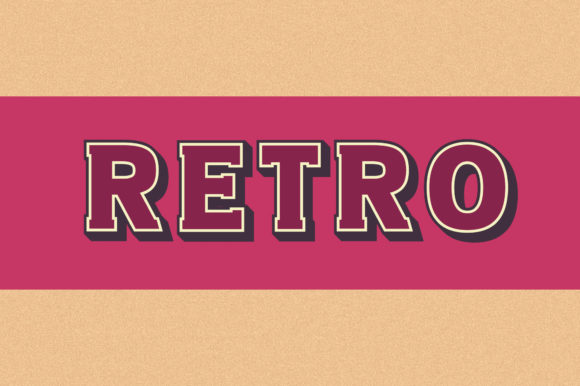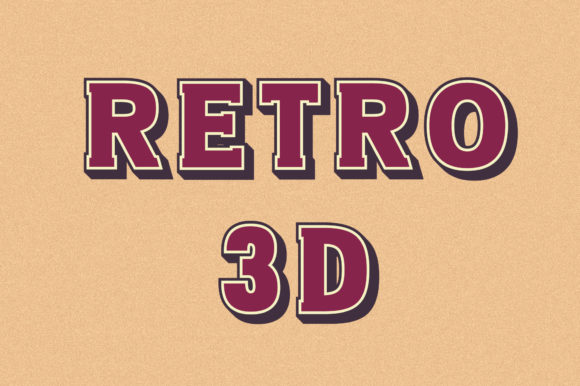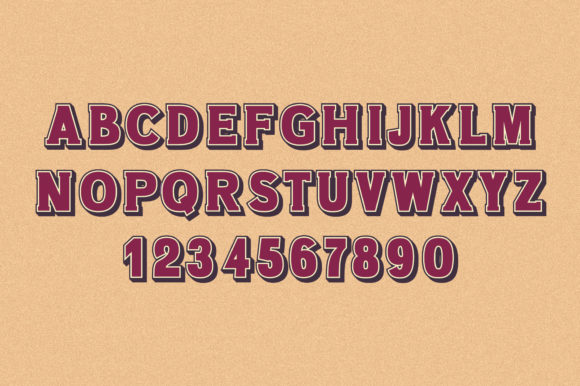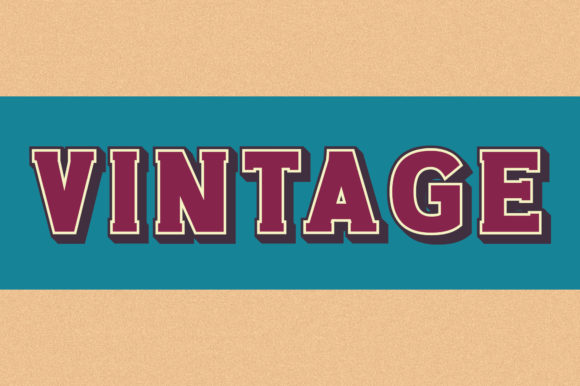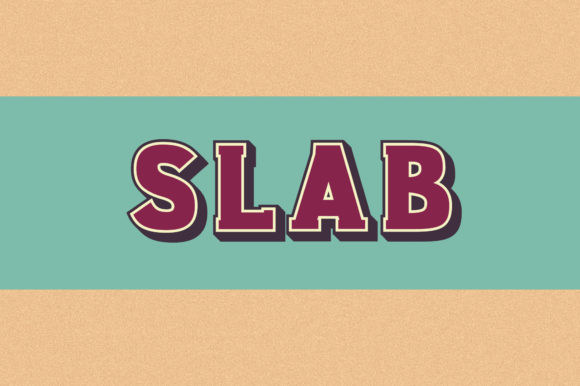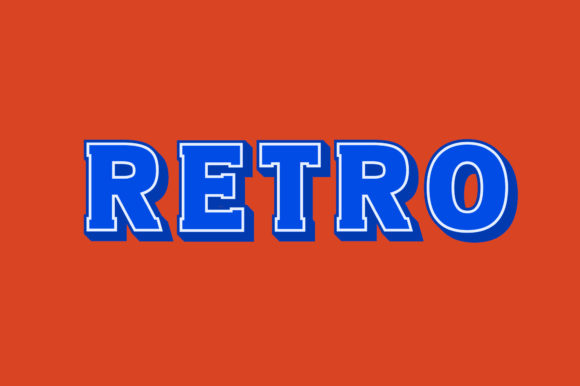
Retro Font
About Retro Font
Introducing Retro, a bold and vibrant SVG color font that takes inspiration from the retro aesthetic. This font is designed to make a statement and works seamlessly in various design projects such as posters, logos, packaging, invitations, websites, T-shirts, and more.
Retro font captures the essence of the past with its bold and eye-catching design. Each letter is crafted with intricate details and vibrant colors, adding a nostalgic touch to your designs. Whether you’re aiming for a vintage-inspired look or a bold and playful design, Retro font can help you achieve your desired effect.
When using Retro font in your preferred software, you can explore its wide range of applications. Create stunning posters with a retro vibe, design captivating logos that grab attention, craft unique packaging that stands out on the shelves, or even add a touch of nostalgia to your digital and print invitations. The possibilities are endless with Retro font.
With its bold and vibrant appearance, Retro font ensures that your designs make a lasting impression. The intricate details and carefully chosen color palette of each letter add depth and character to your typography, allowing you to create visually striking compositions.
So, unleash your creativity and embrace the boldness of Retro font. Explore its versatility and let it bring a touch of nostalgia and vibrancy to your design projects. Whether you’re working on personal or commercial endeavors, Retro font is here to elevate your designs and captivate your audience with its retro charm.